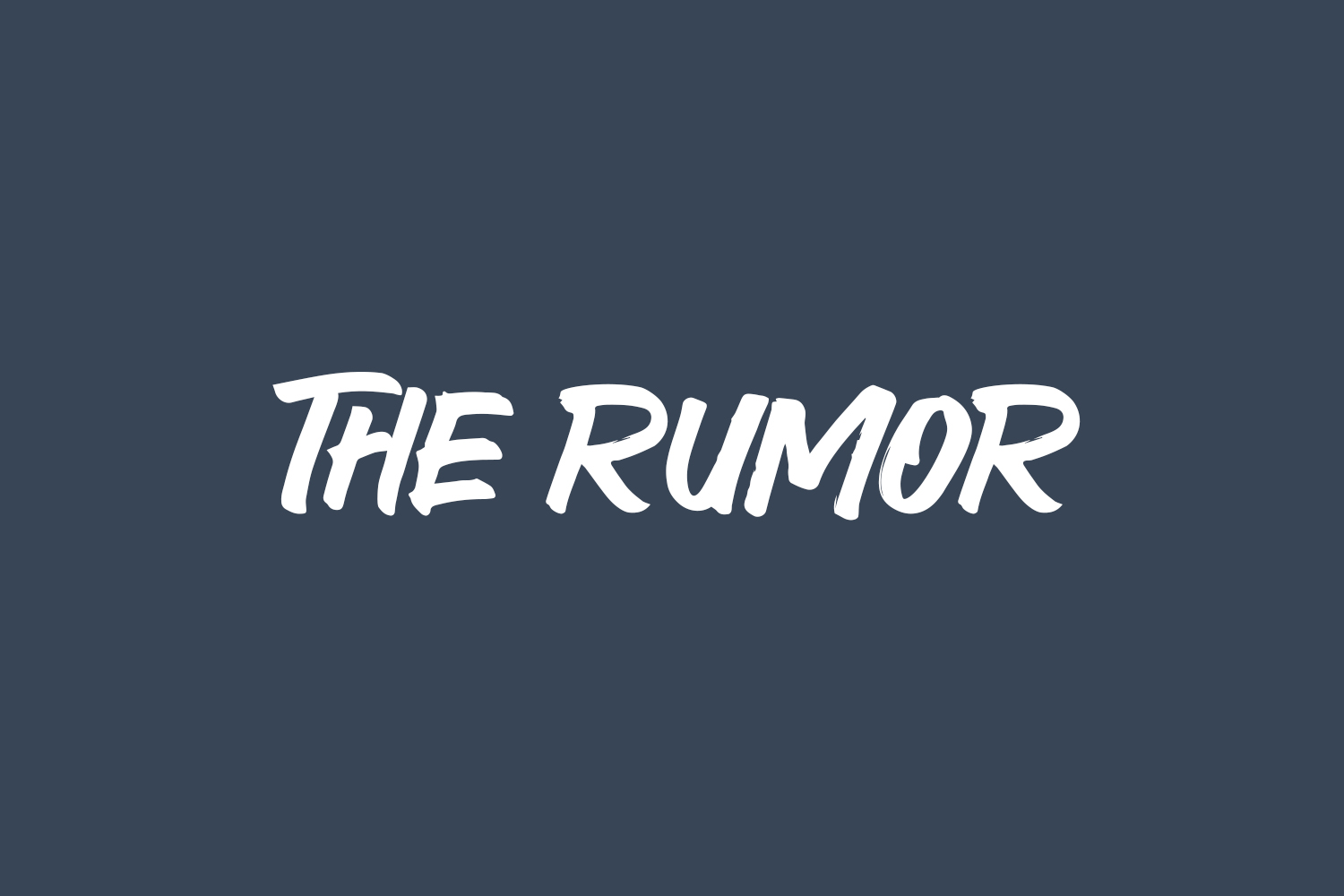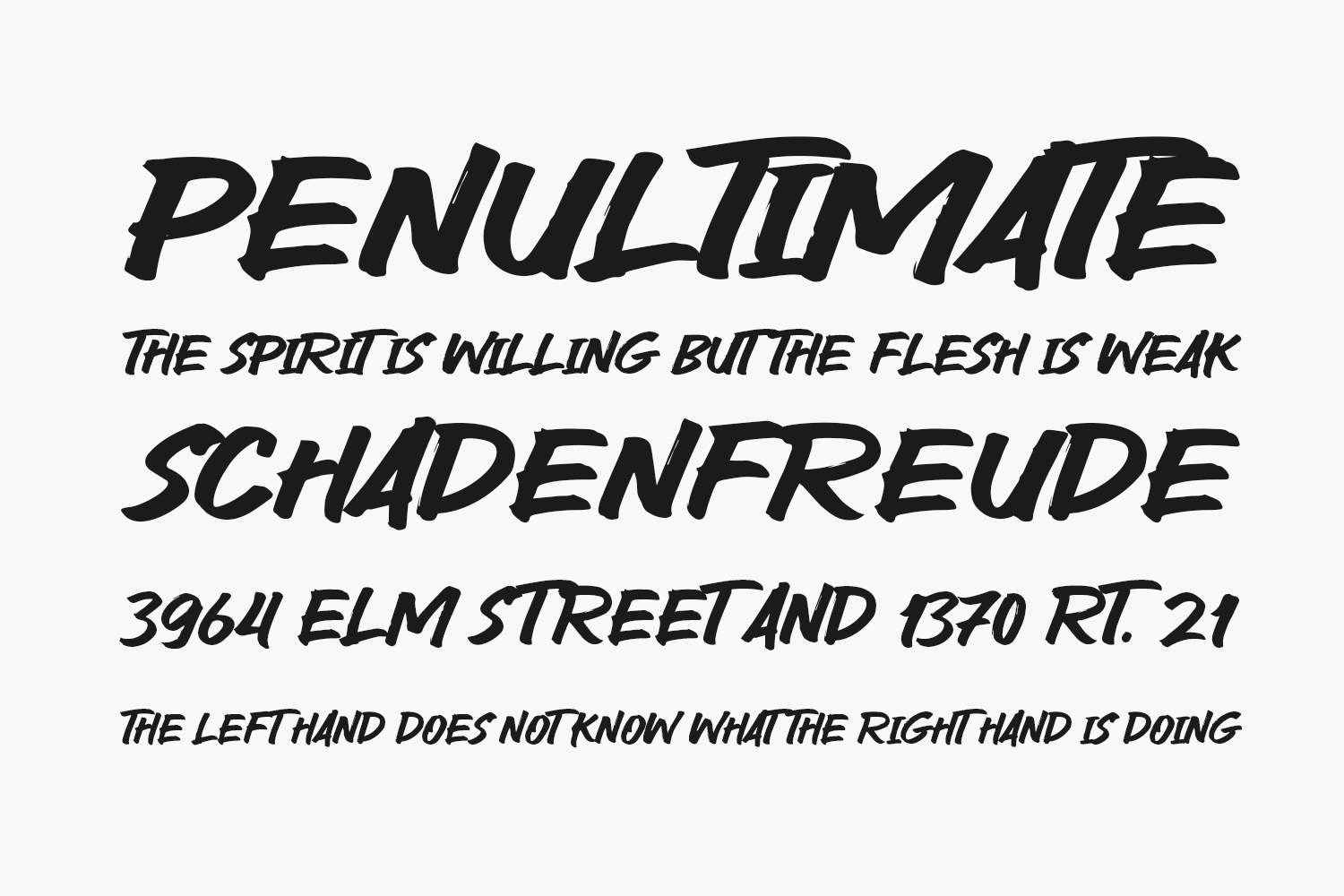
Rumor Free Font is a contemporary brush typeface ideal for a variety of design projects, such as posters, logos, magazines, book covers, banners, and more! Add a touch of quirkiness to your designs with this distinctive display font.